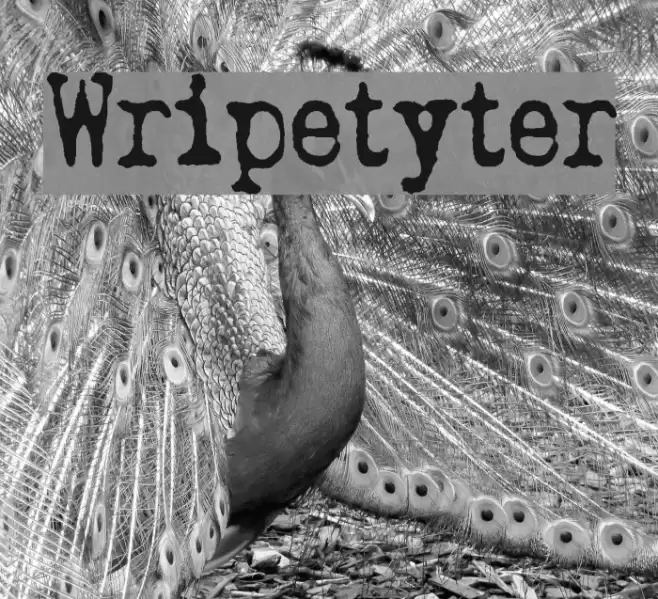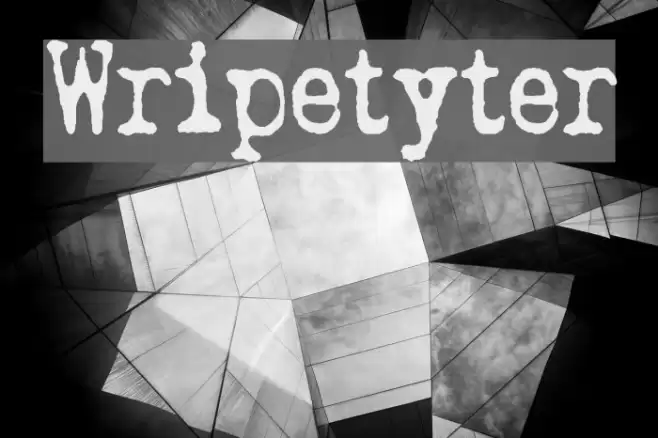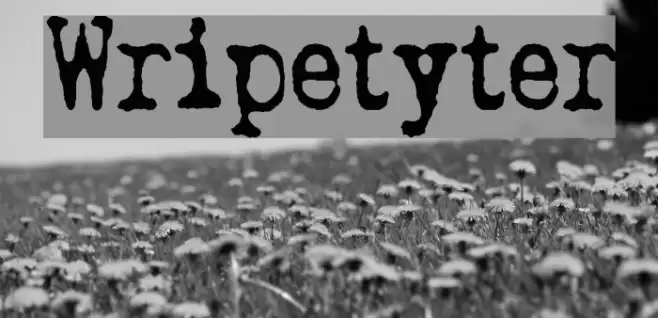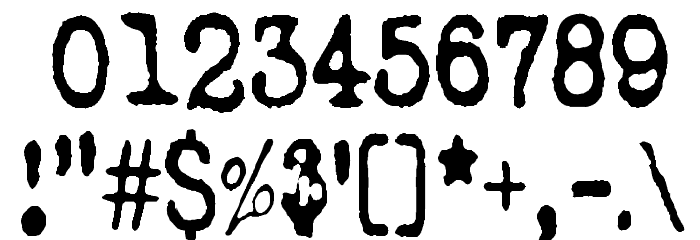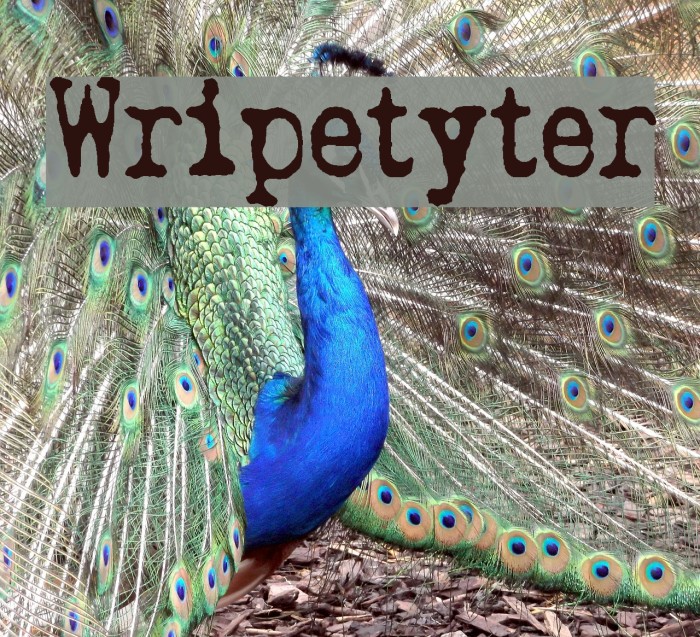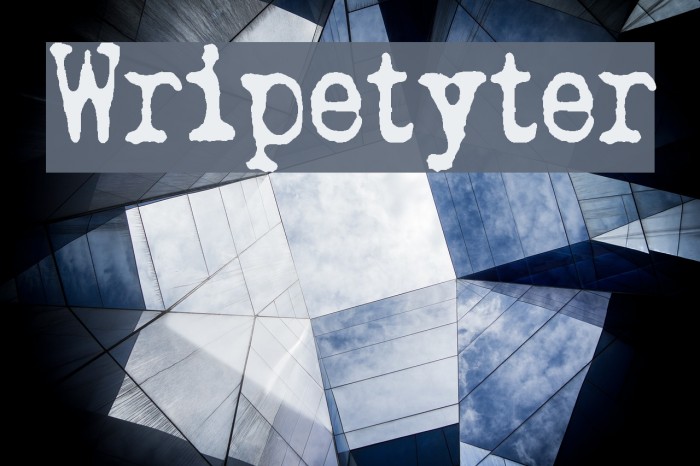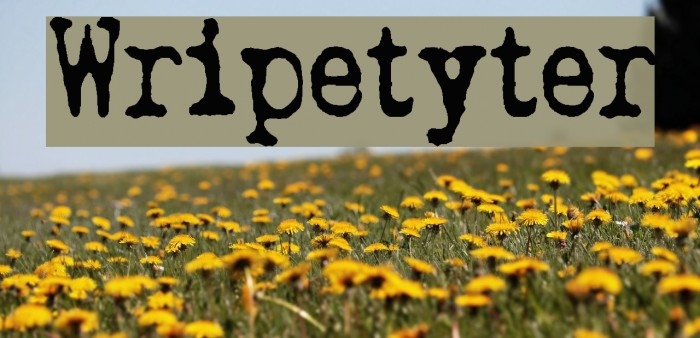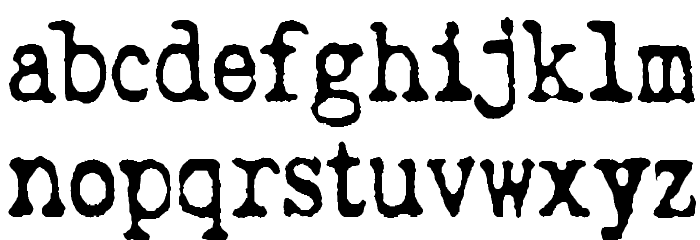
Wripetyter
This font exhibits a rugged, distressed appearance reminiscent of typewriter text with a vintage twist. The characters are bold and slightly irregular, giving them a hand-crafted feel. The uppercase and lowercase letters maintain a consistent style, with rounded edges and a slightly worn texture that adds character. The numerals and special characters follow the same aesthetic, ensuring a cohesive look across all glyphs. This font's unique style makes it stand out, offering a nostalgic yet modern appeal that can enhance creative projects.
A bold, distressed typewriter-style font with a vintage, hand-crafted feel.
- Proposed Projects: Ideal for vintage-themed designs, posters, branding, and creative projects that require a distinctive, nostalgic touch.
- Overall Style: Vintage
- Use Case: Headlines, Logos, Posters